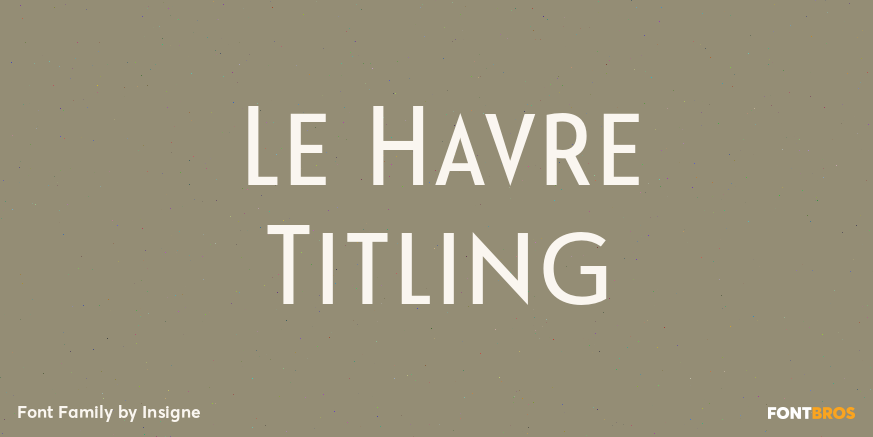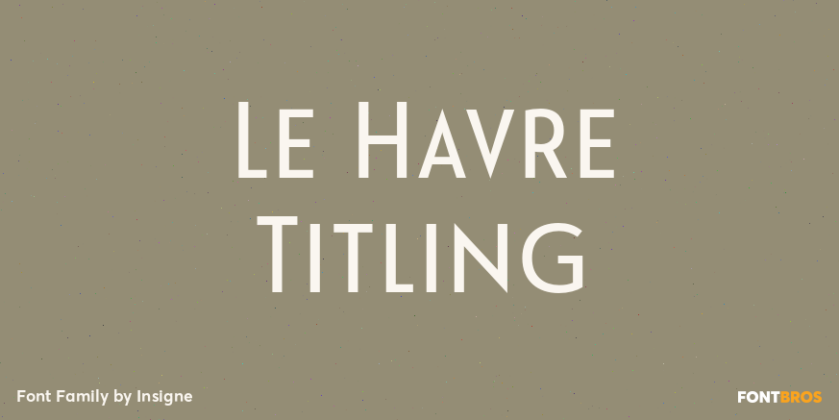
Le Havre Titling
About Le Havre Titling
Throughout time, history\’s architects have incorporated some of the finest illustrations of type into their great works–cuneiform on Mesopotamian ziggurats; Greek etched into the temples of the gods; inscriptions marking the monuments of mighty Rome.…